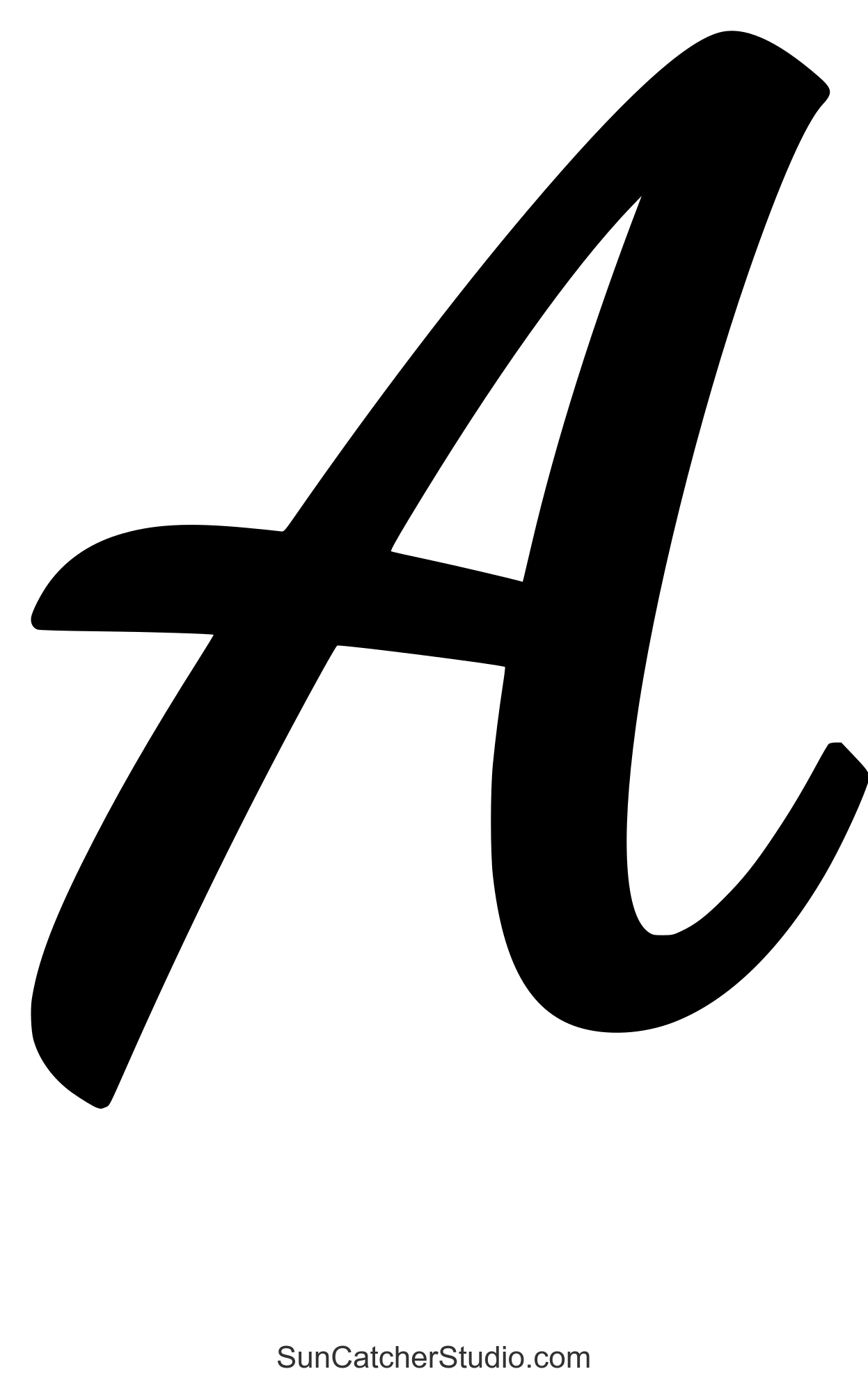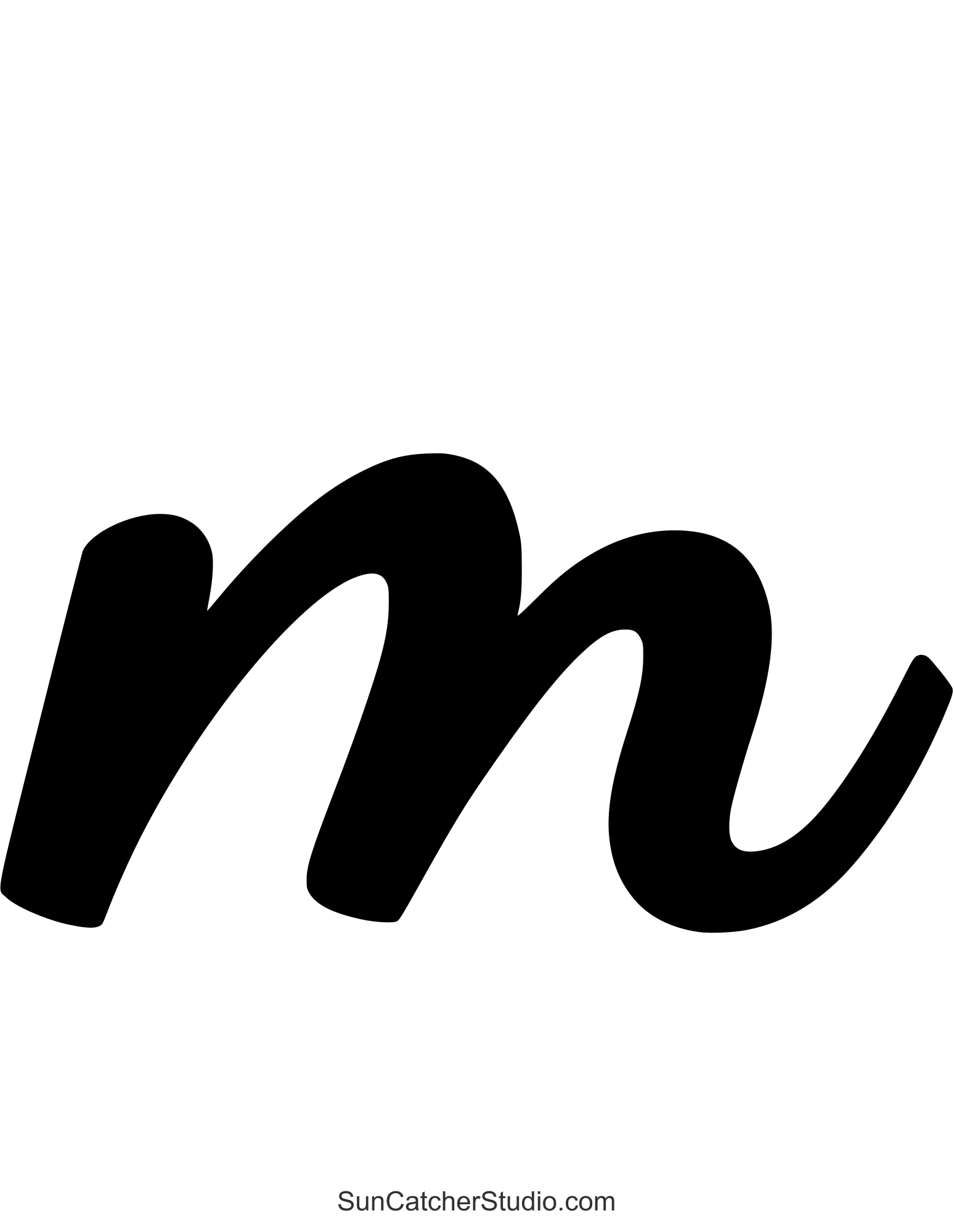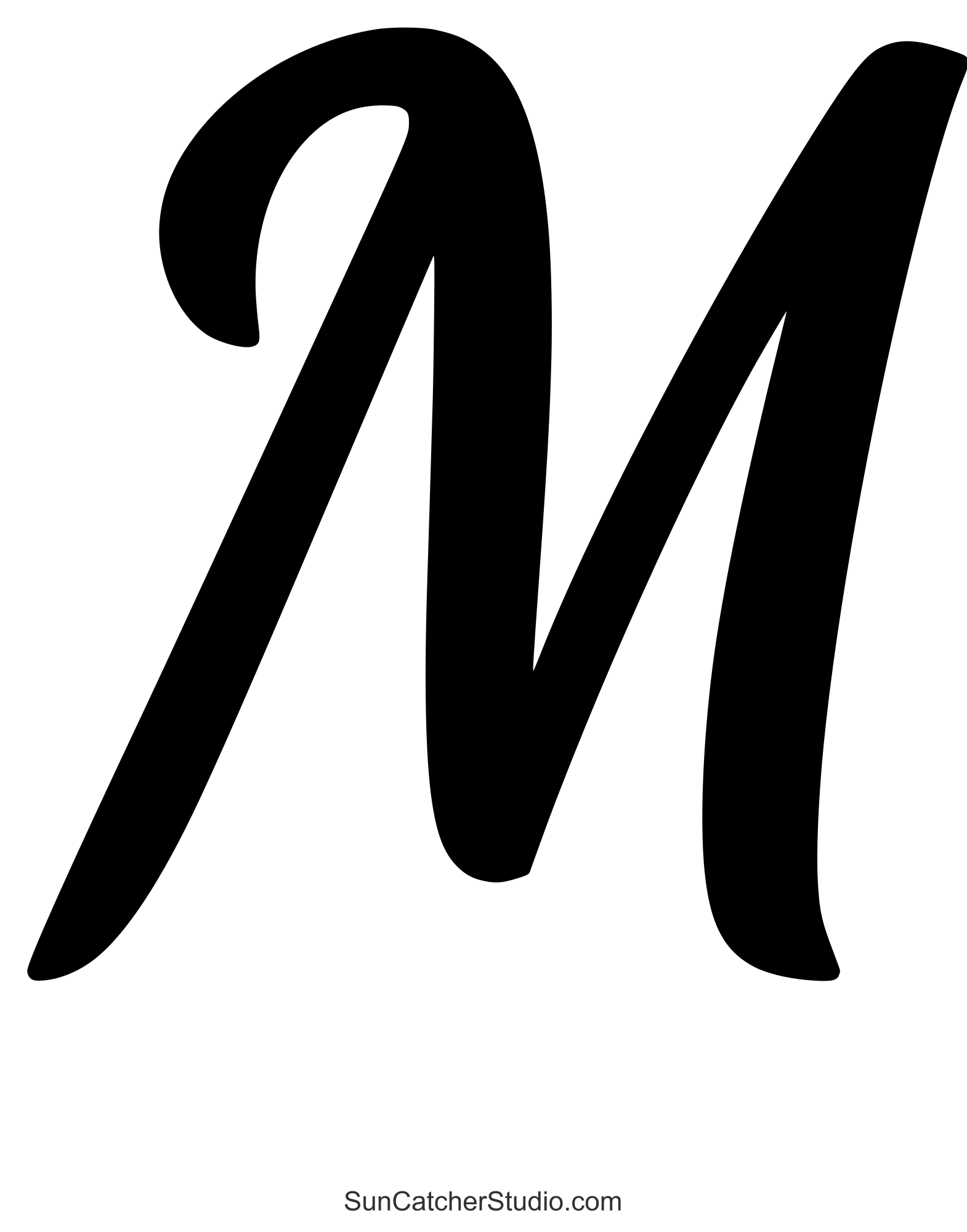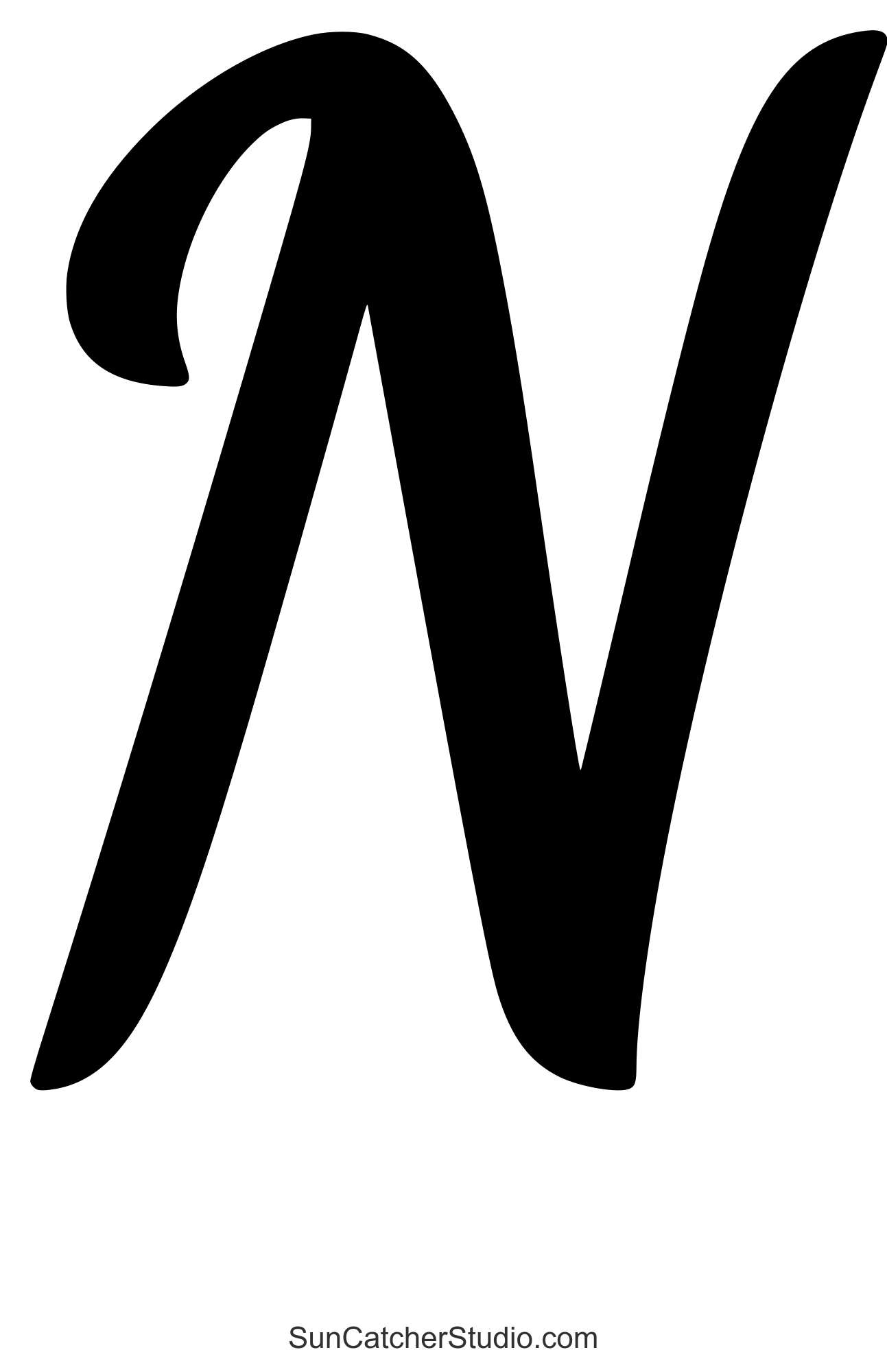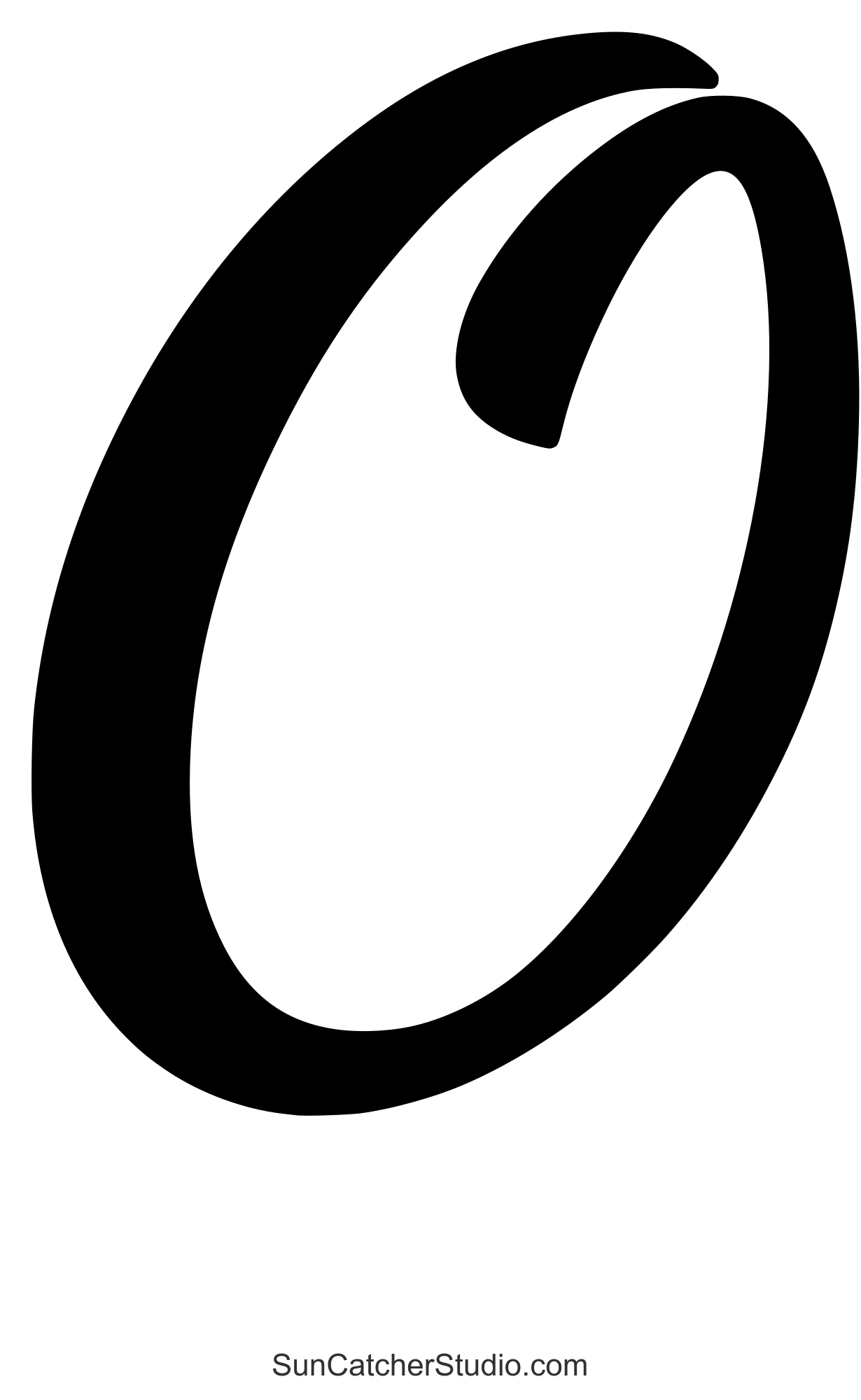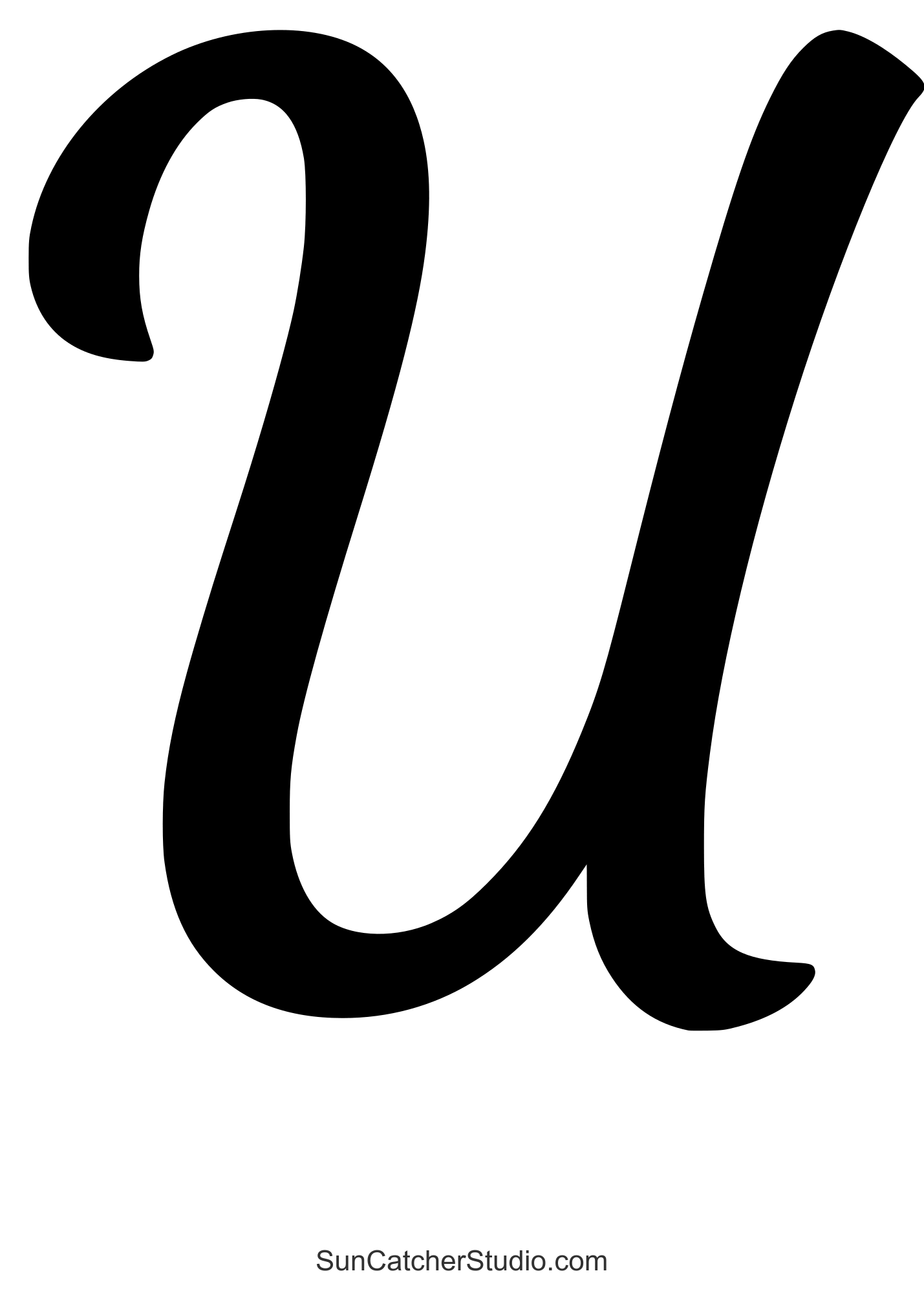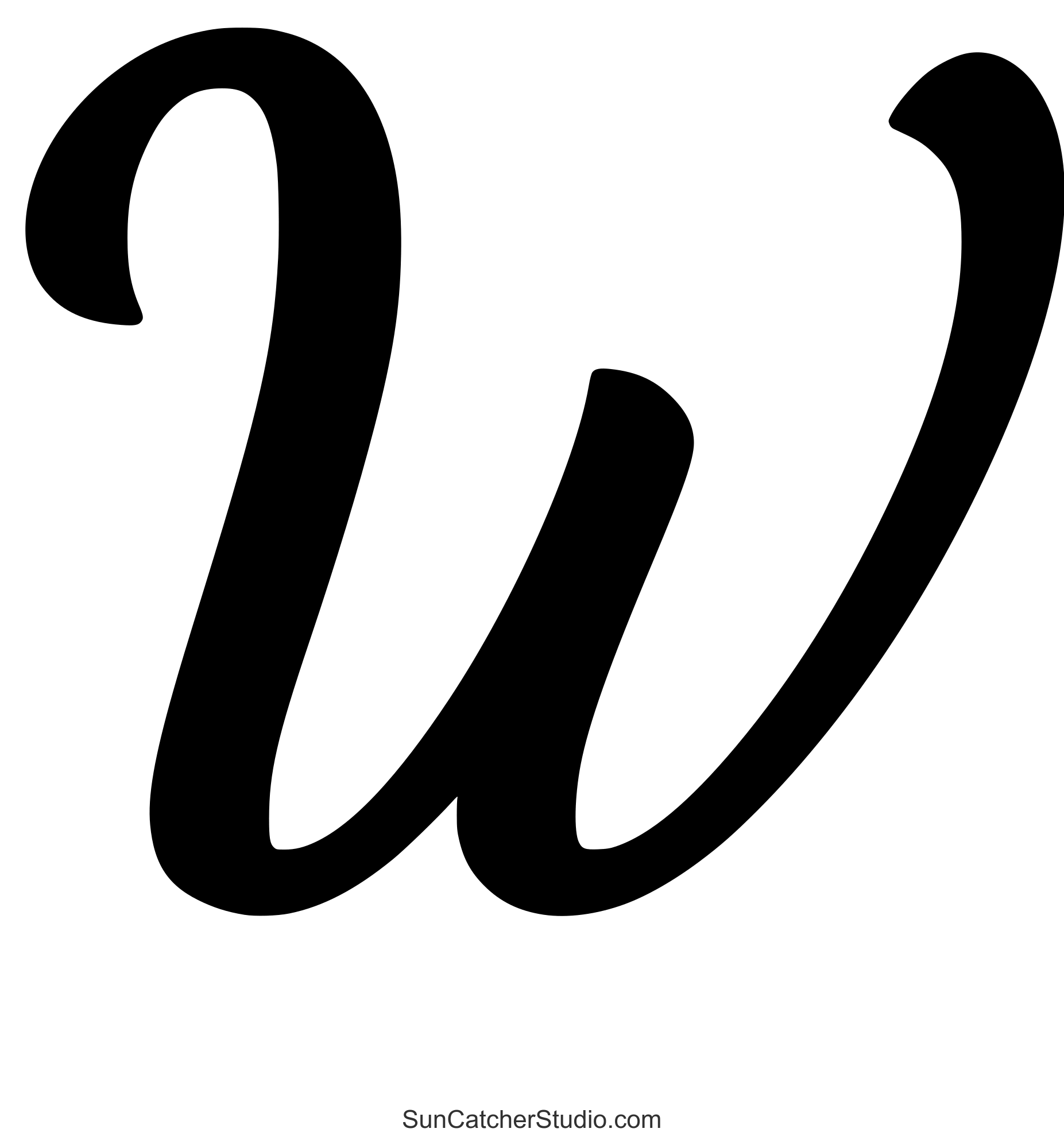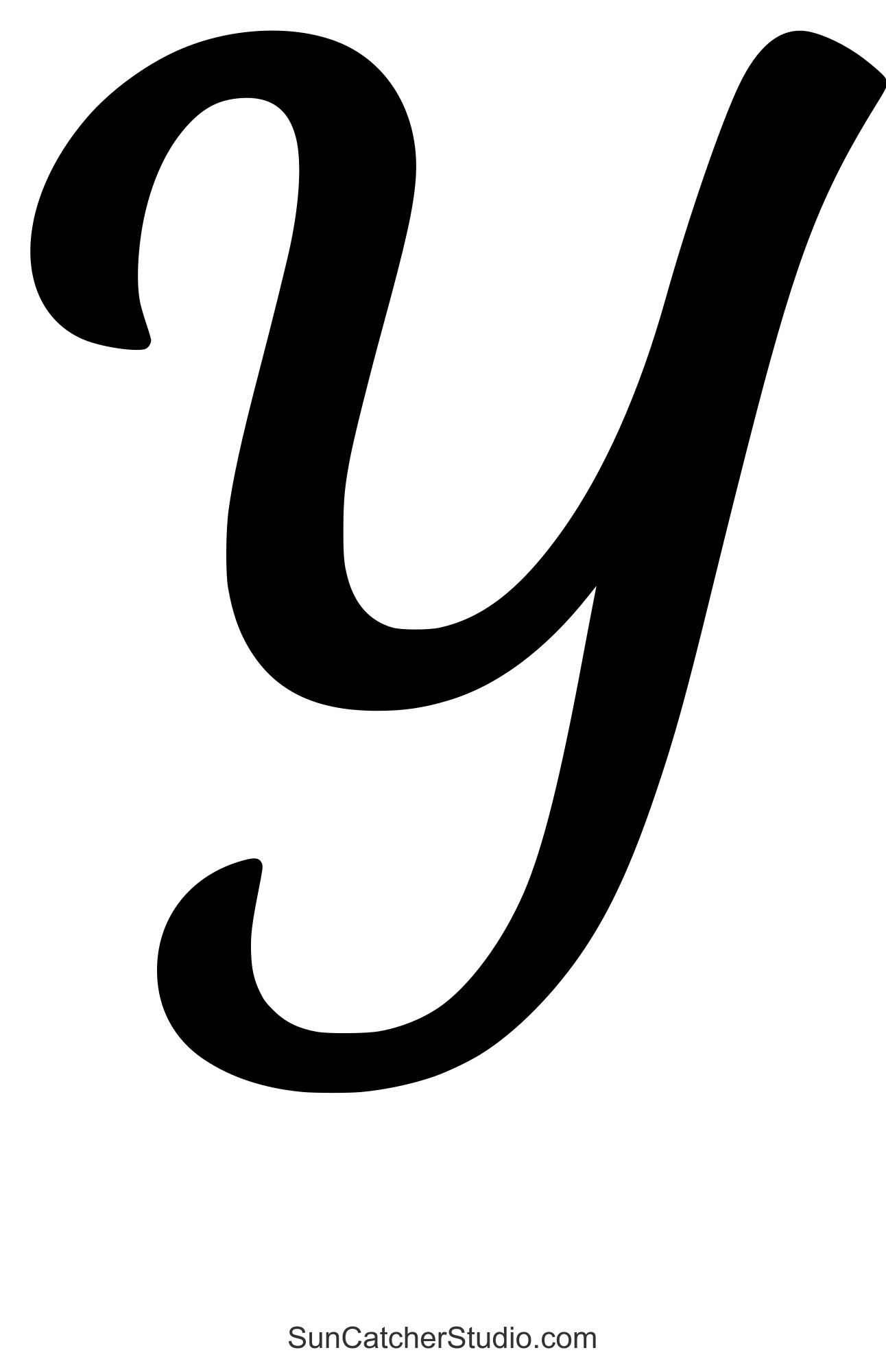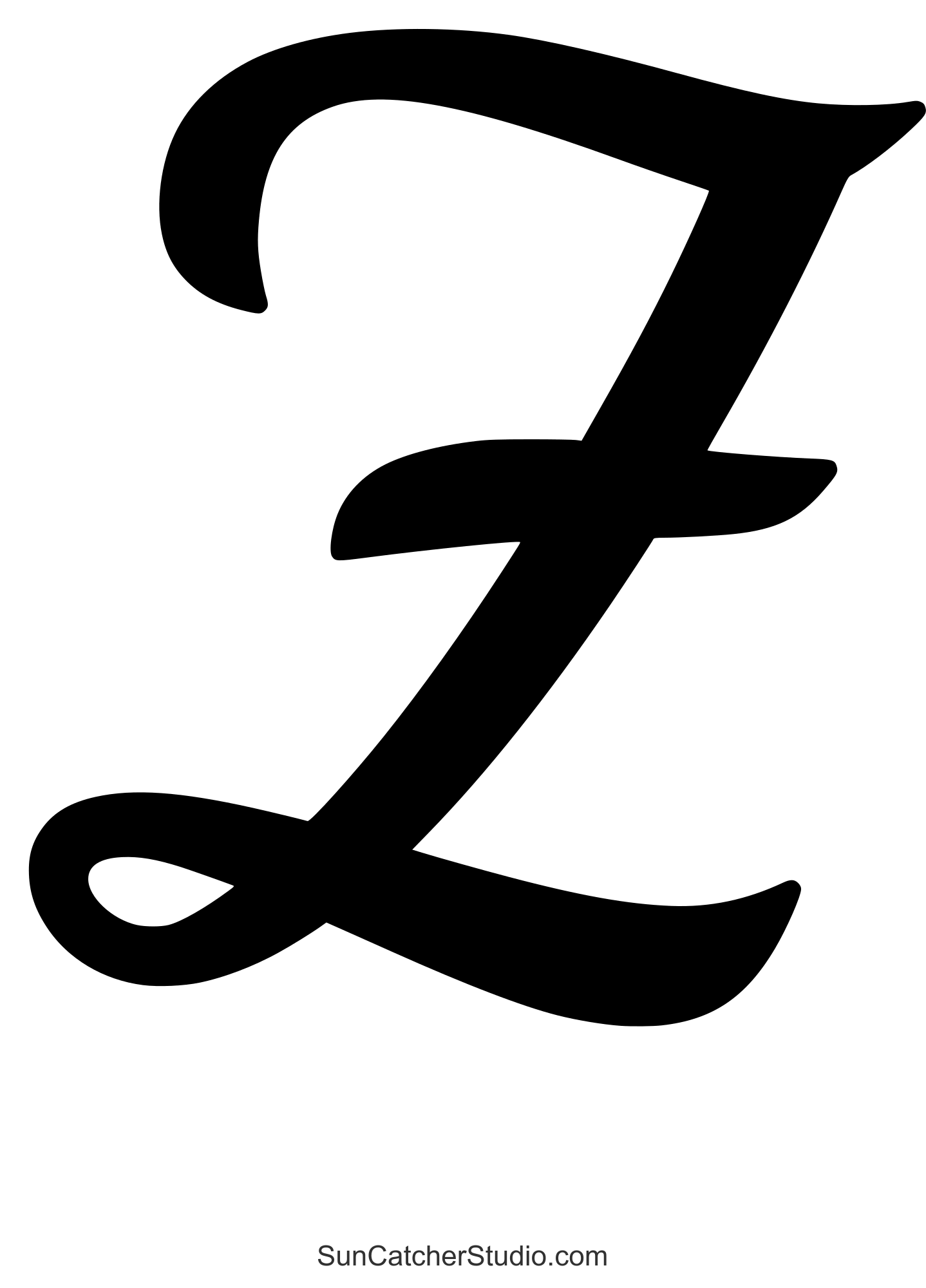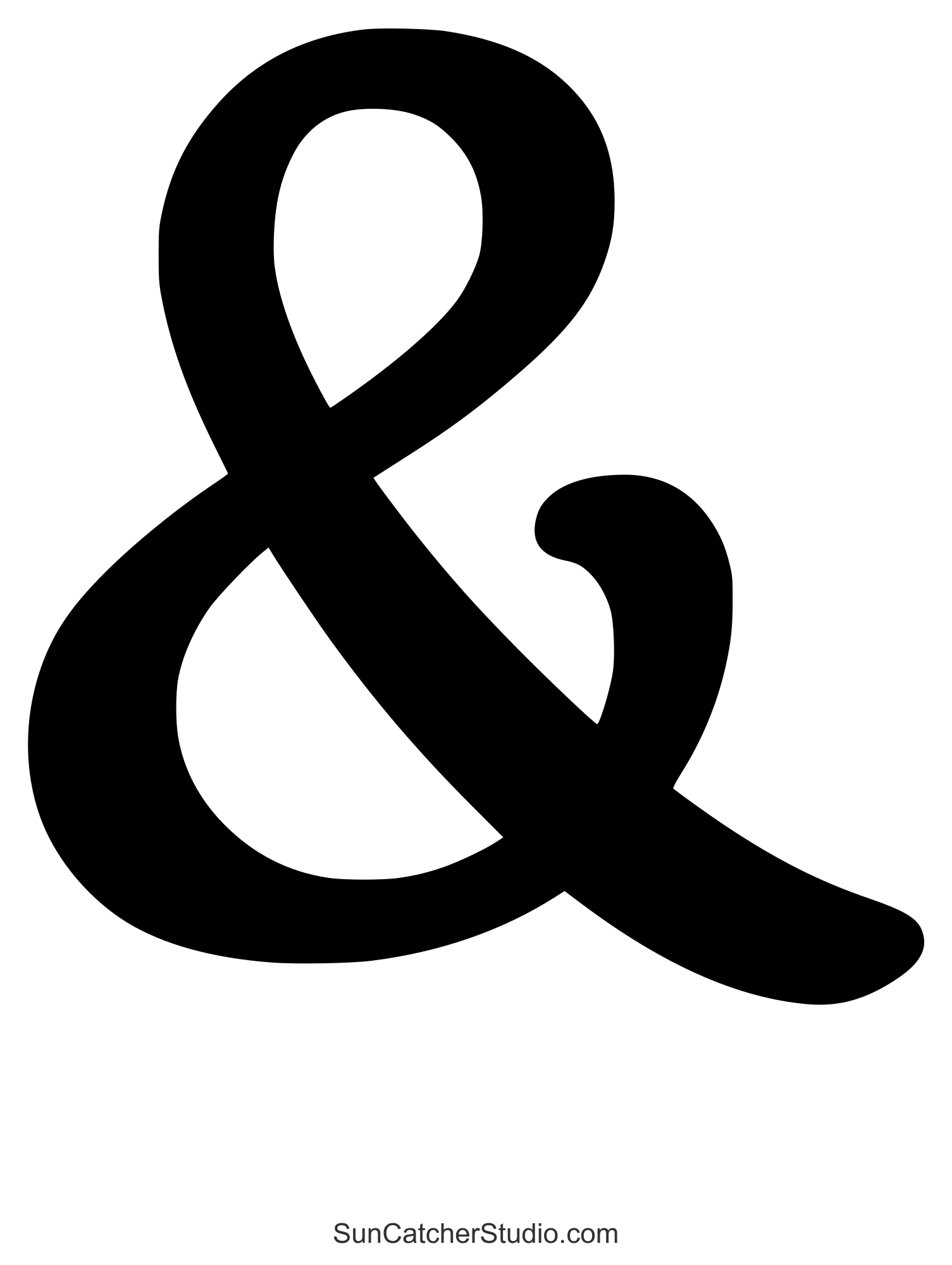
Free printable cursive letters, handwriting script, stencils, clip art, and alphabet font. Personalize with your own color! Great for bulletin boards, decorations, signs, etc. For more ideas see cool fonts and font generator and fancy text generator and distressed script font.
Cursive Letters Font (Printable Lettering, Alphabet & Stencils)
Use these free printable cursive letters (handwriting font) for bulletin boards, back to school banners, door decorations, t-shirts, or welcome signs. These handwritten script, bold, heavy letters can be used for birthdays banners, DIY crafts, and decorations. The patterns can be printed in color, or black and white. All patterns can be downloaded in Scalable Vector Graphic (SVG), PNG, PDF, and JPG formats. If combining the individual letters to create word art make sure to specify the same height for all letters.